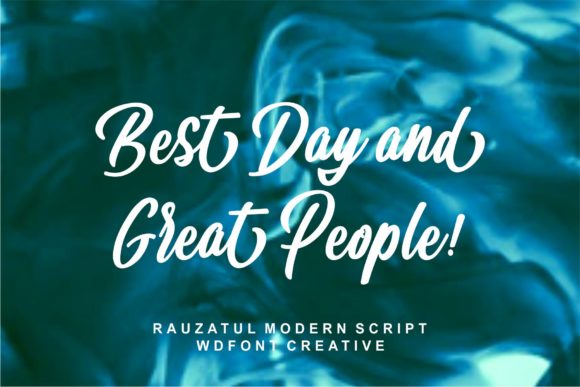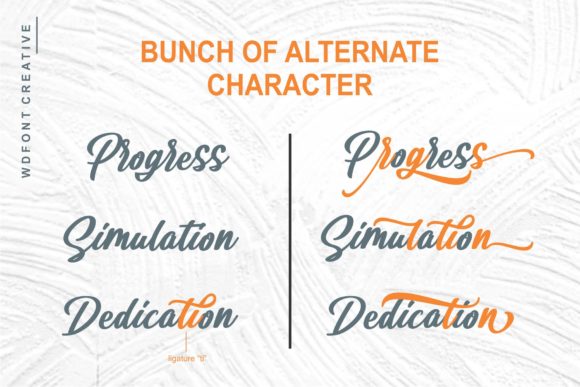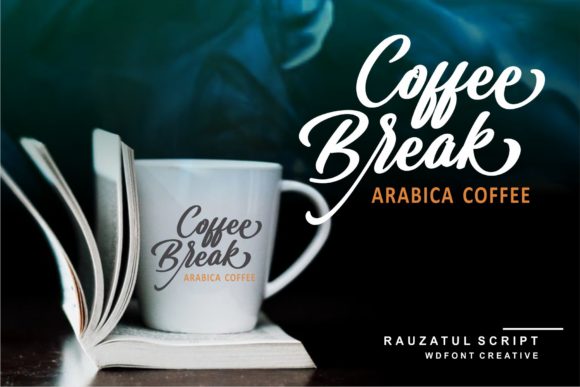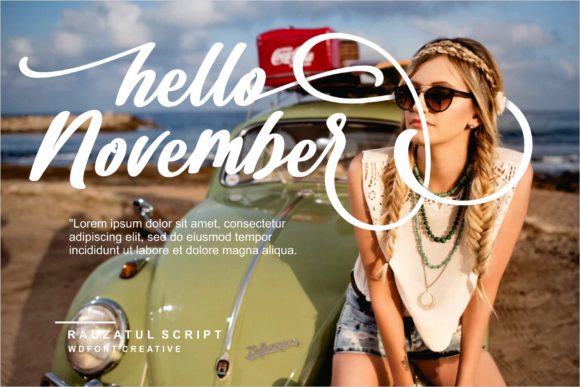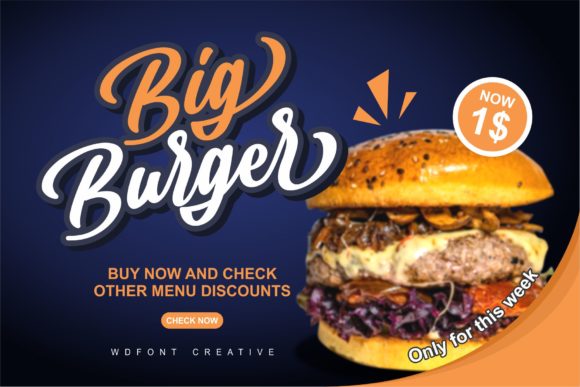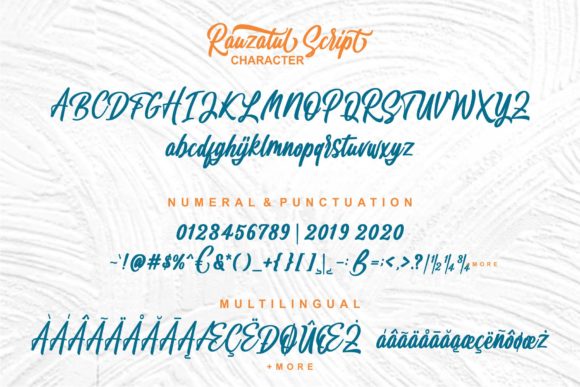
Introduction to Rauzatul Font
Rauzatul is a lovely script font.
Its unique style will take your designs to the next level .
Key Features of Rauzatul Font
Why Choose Rauzatul Font?
Rauzatul Font offers exceptional quality and versatility, making it a valuable addition to your design toolkit. Whether you’re creating for personal projects or commercial use, Rauzatul Font delivers professional results.